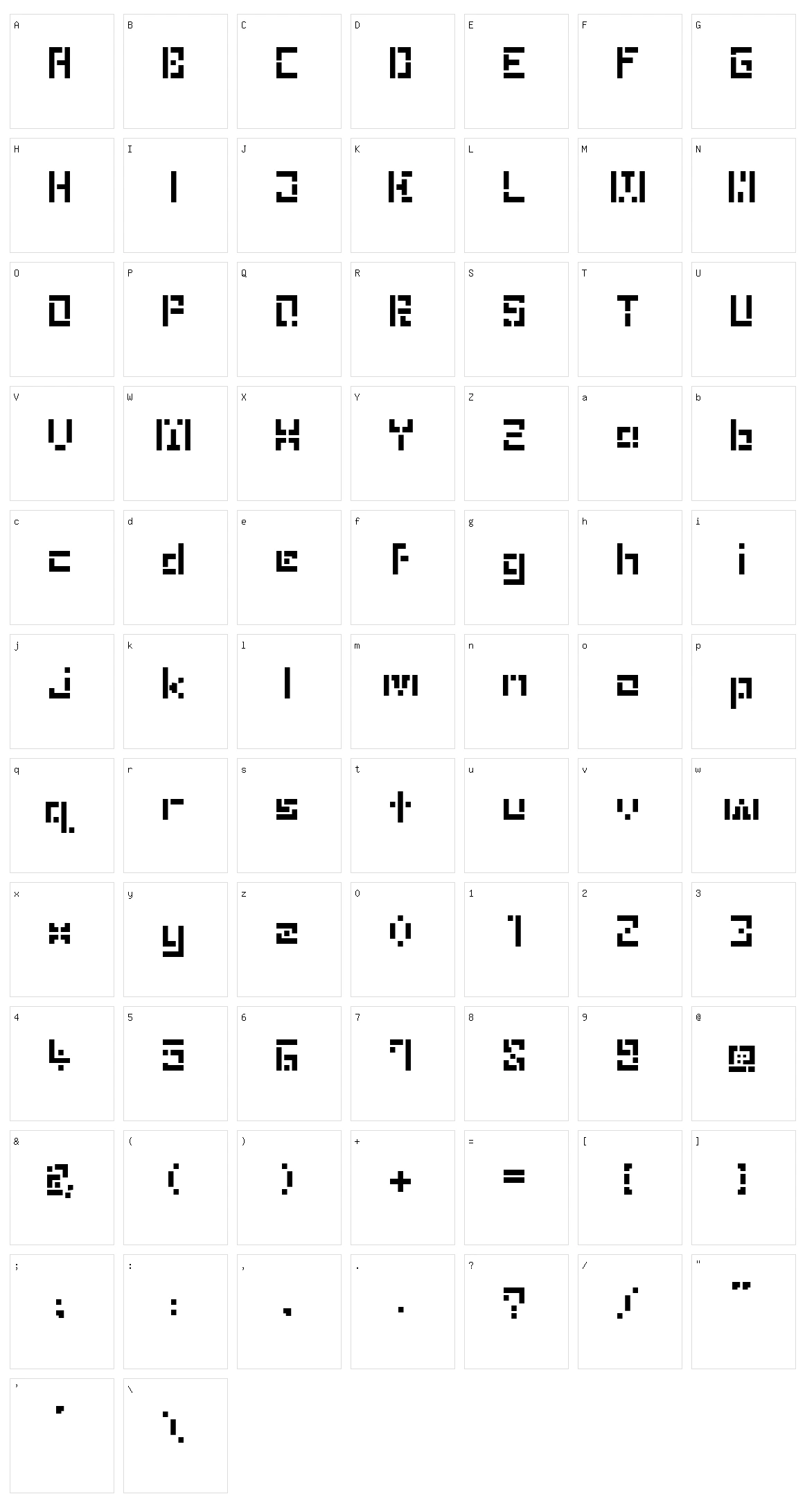
The free font Puzzle is carefully designed by Ji Yan Lee, showcasing a thoughtful balance of creativity and usability and falls under the Square font style. When you download the ZIP file, it contains only 7.79 KB of font files, making it lightweight and quick to download. Please review the license details below to understand permitted usage and distribution rights. If license information is not available, we recommend using this font for personal projects only or contacting the author directly for commercial usage permissions.